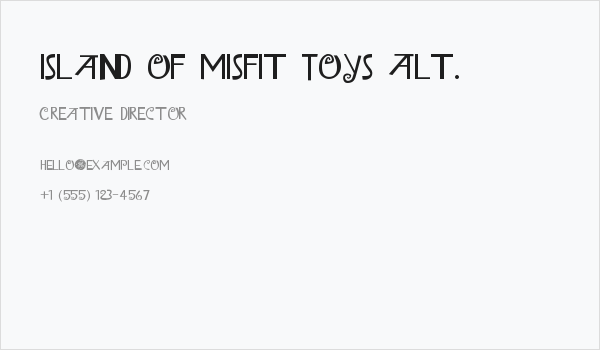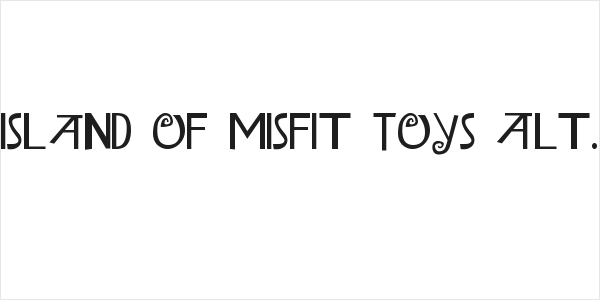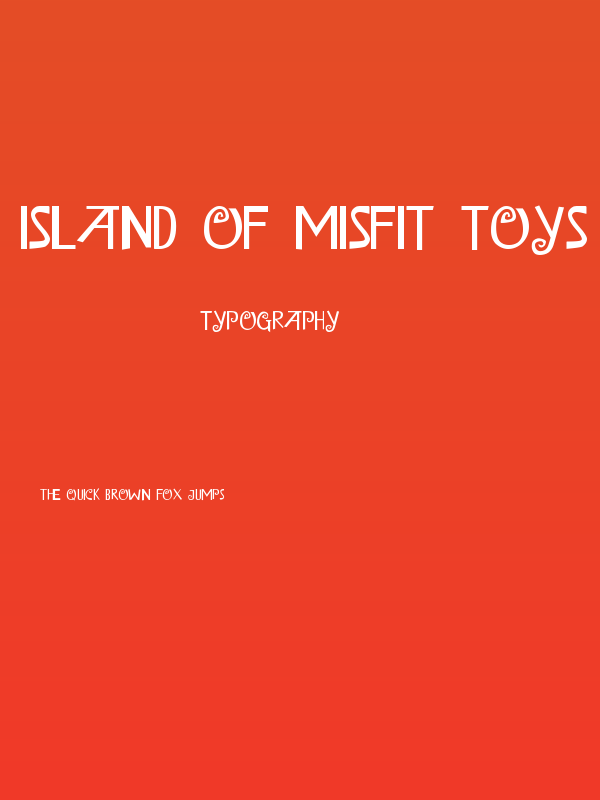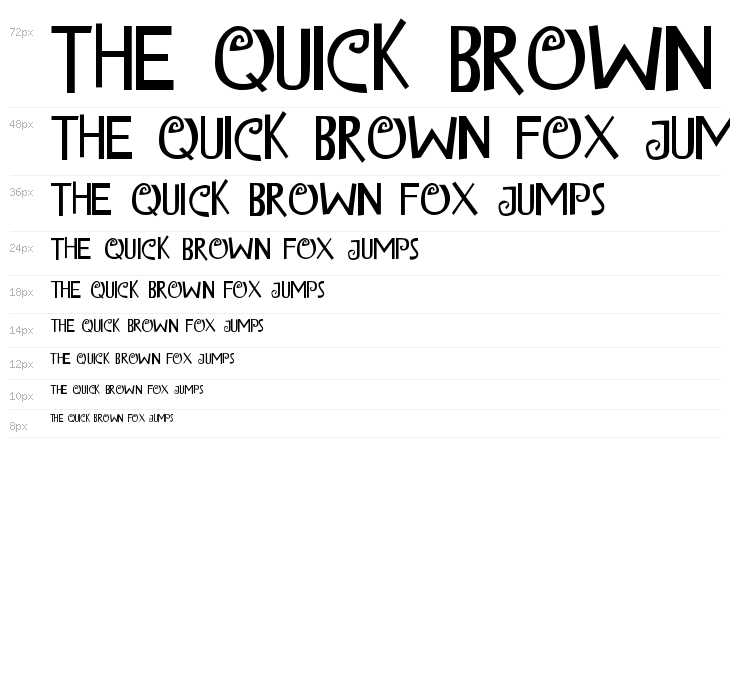
Island of Misfit Toys Alt. Font
Island of Misfit Toys Alt. Description
This font features a whimsical and playful design, characterized by its unique and quirky letterforms. The uppercase letters exhibit a mix of straight and curved lines, with some characters incorporating spiral elements, adding a sense of fun and creativity. The lowercase letters maintain this playful style, with varied stroke widths that contribute to its dynamic appearance. The numerals are bold and distinct, each with its own personality, while the special characters continue the theme with imaginative twists. Overall, this font exudes a sense of joy and lightheartedness, making it ideal for projects that require a touch of whimsy.